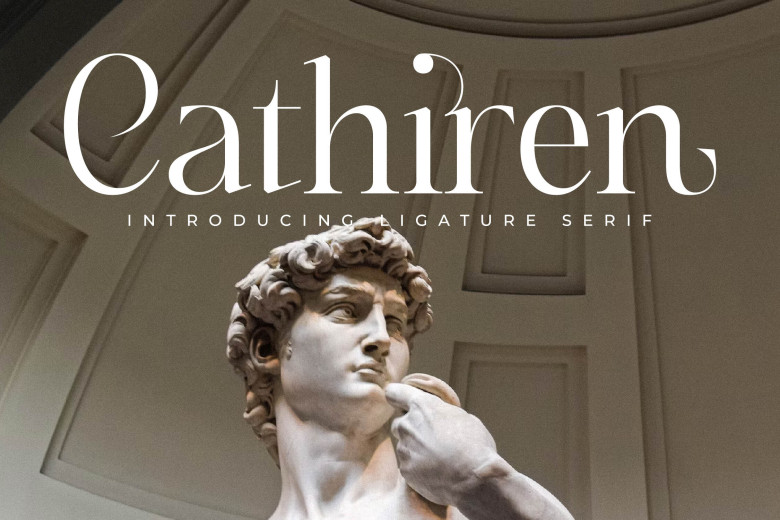
Cathiren Font
Cathiren features an exquisite and modern aesthetic, inspired by classic serif typeface. This font can be used for creating luxurious and elegant logos, fashion brand identities, magazine covers and clothing design as well as quotes and book titles.
Cathiren Serif Font